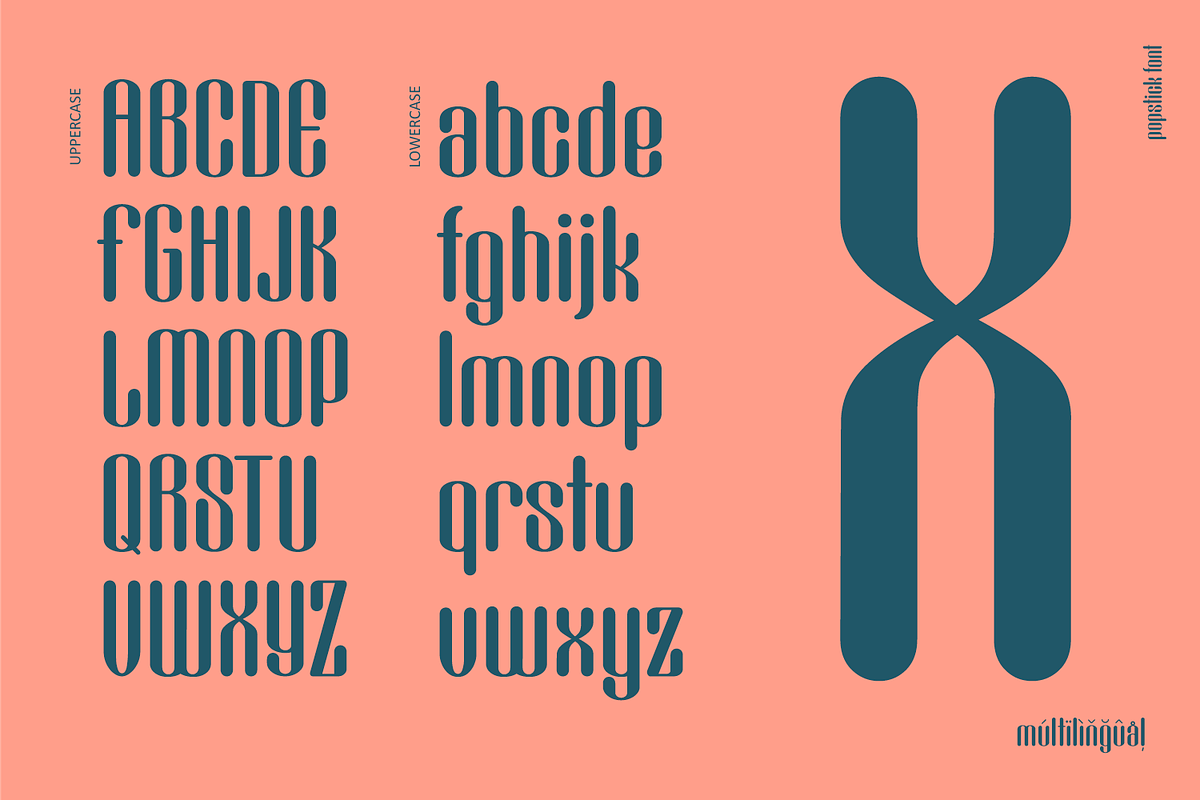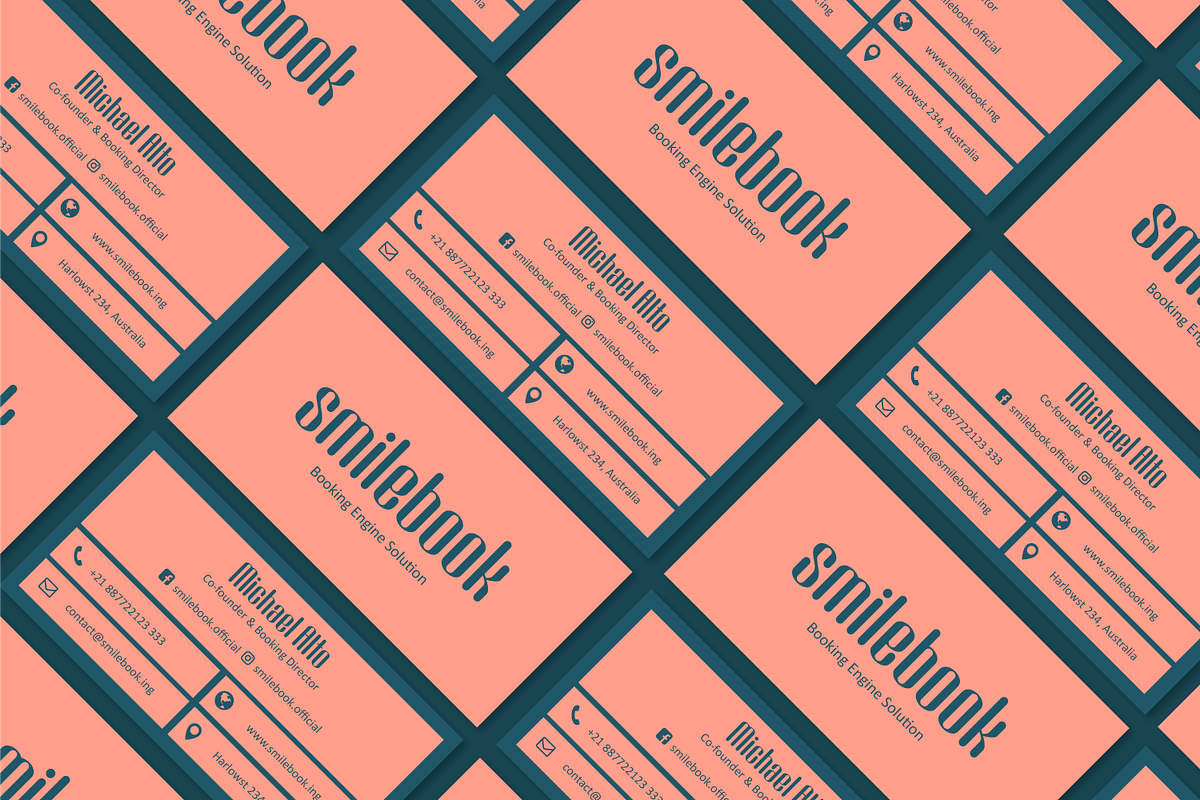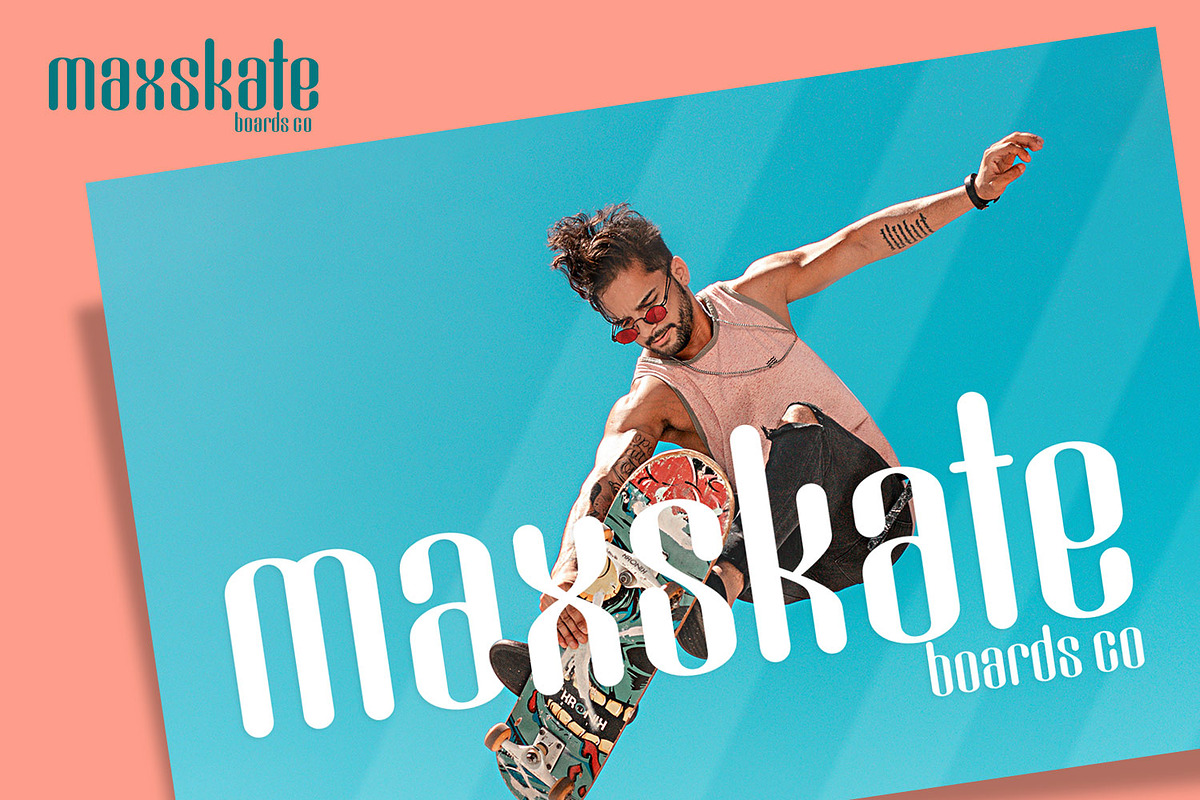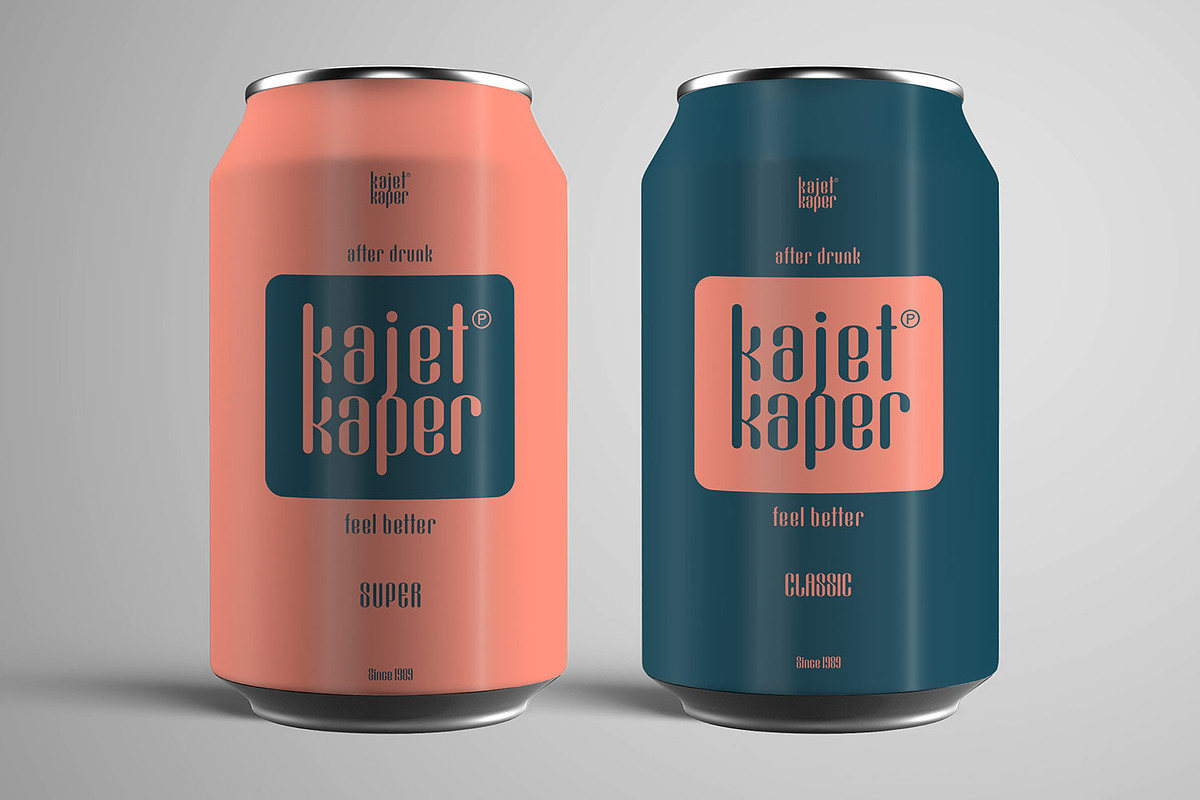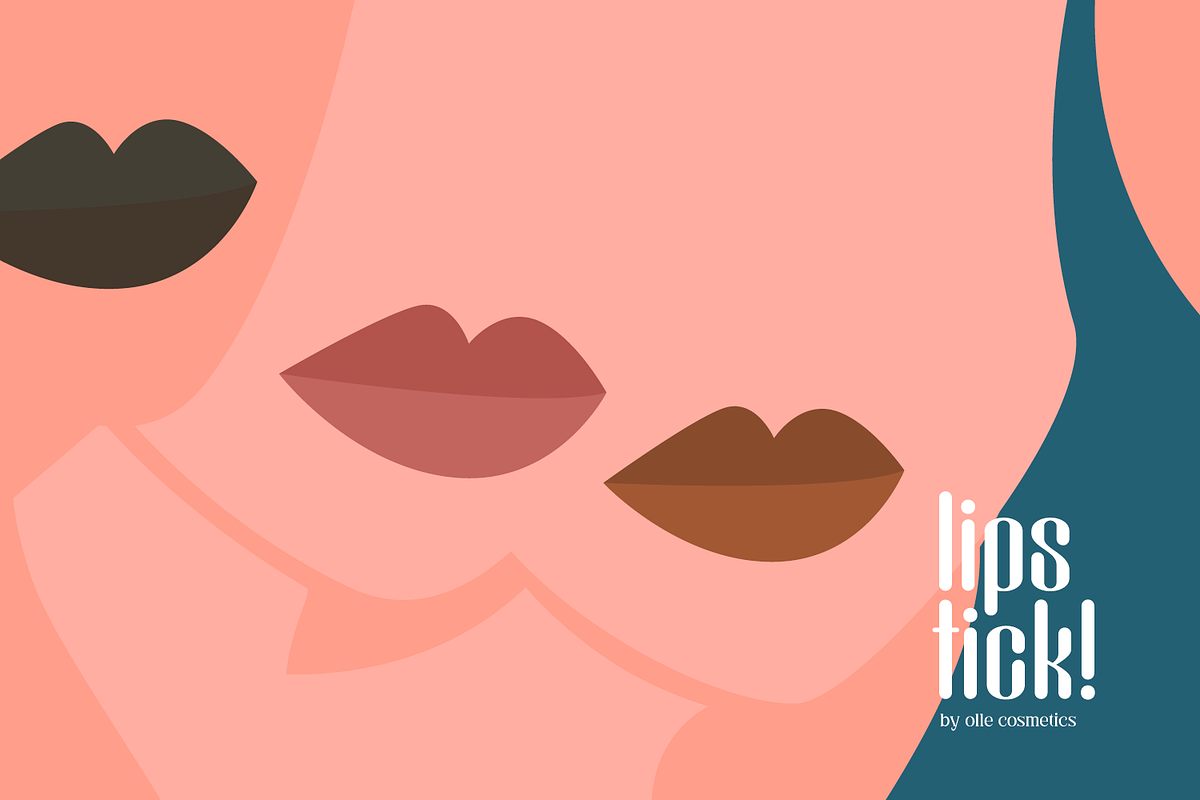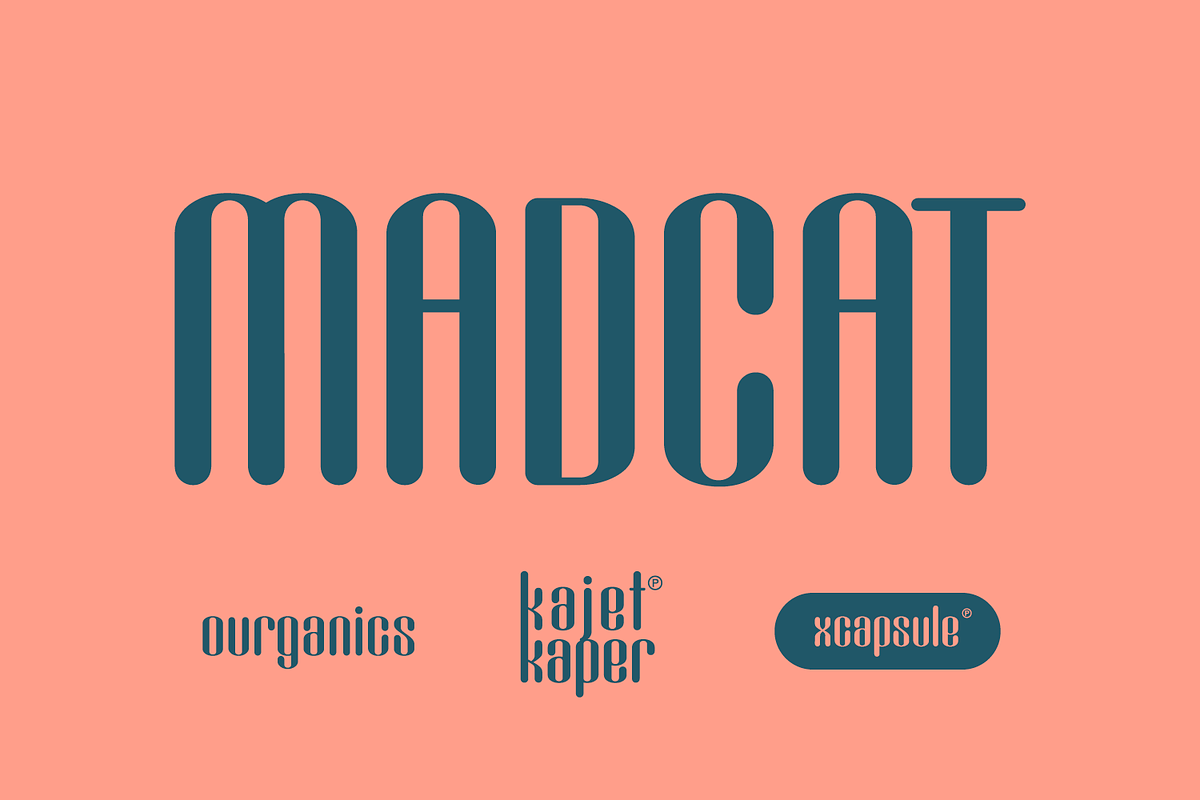
Popstick Font
Popstick font! Inspired by Ice Cream Stick, simple and cool pop art style font for your design. modern clean and fresh look with nice perfect rounded shape. This font is best for commercial and editorial uses like advertising, apps, sports brand, packaging, logo, header, corporate identity and many more.
Popstick Font by creativemedialab fits naturally into Branding, posters, packaging, typography.